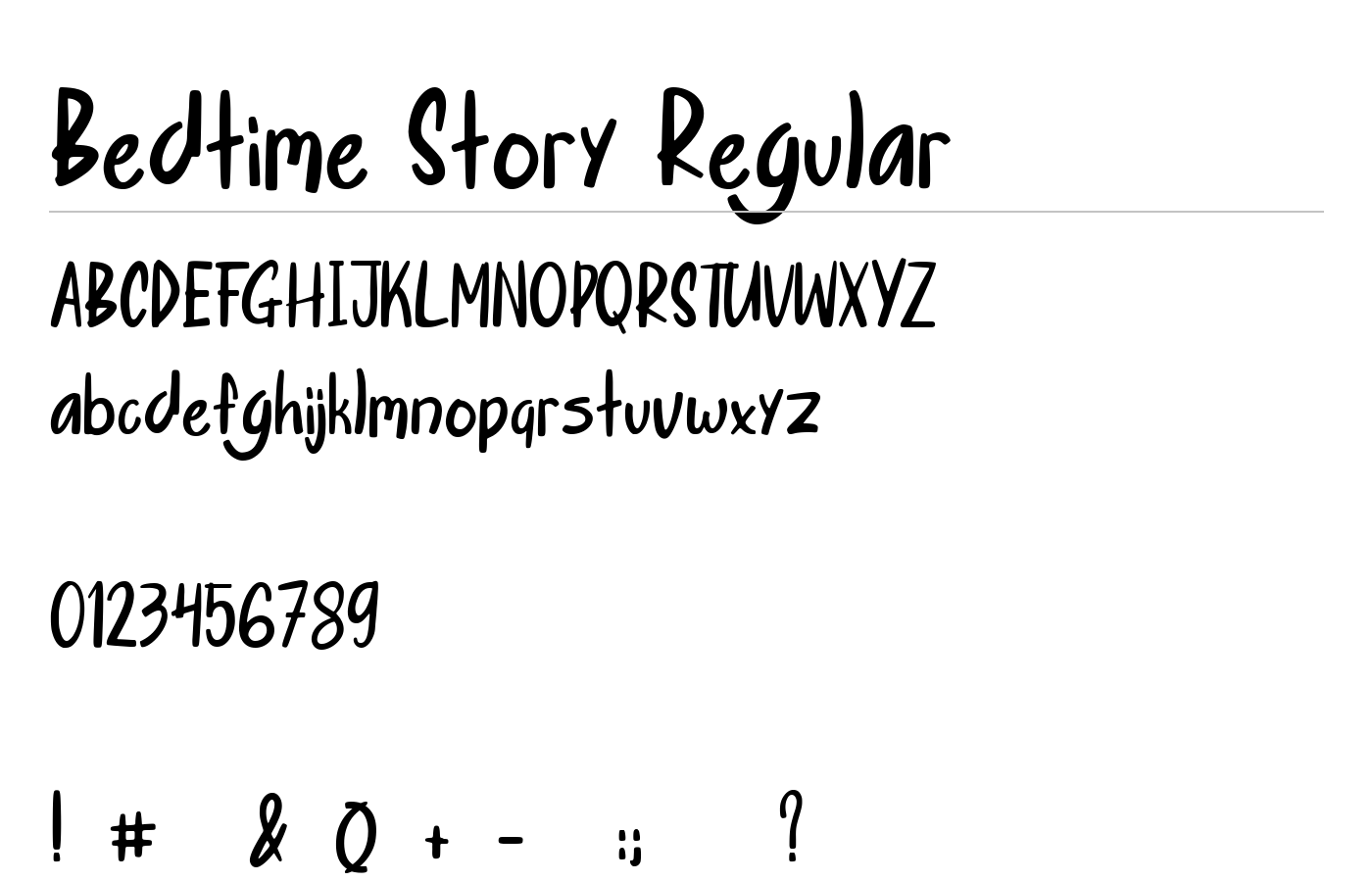
Bedtime Story is a playful, casual handwritten font with a friendly and approachable vibe. Its irregular, flowing letterforms and medium weight give it a warm, informal feel, making it perfect for children's books, creative projects, and branding that seeks a personal touch. This font works well in headlines and display uses where a charming, humanistic style is desired.
Bedtime Story Font
About Bedtime Story Font